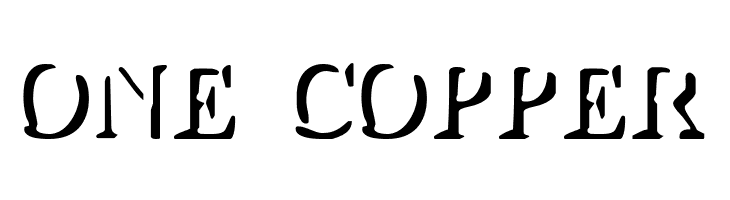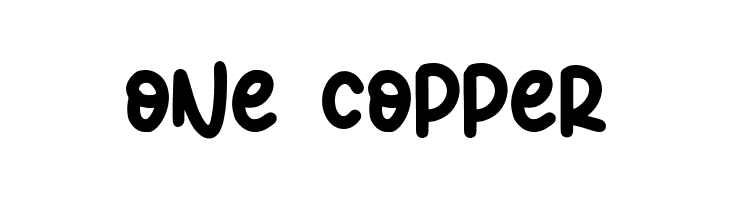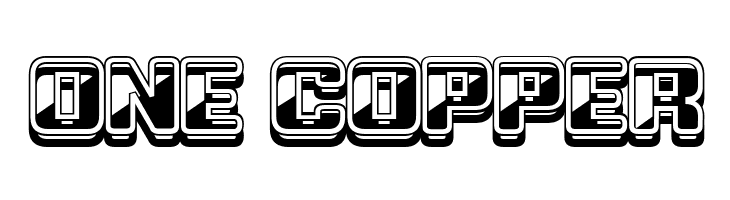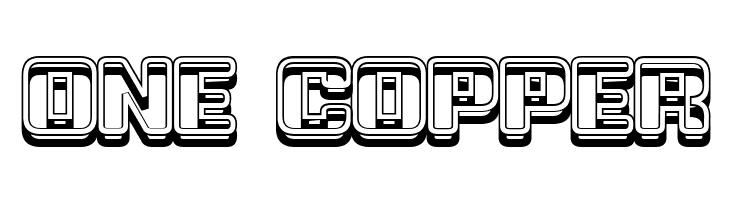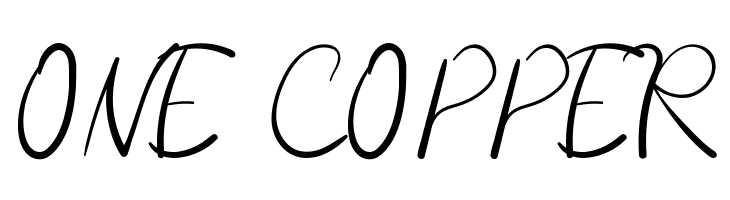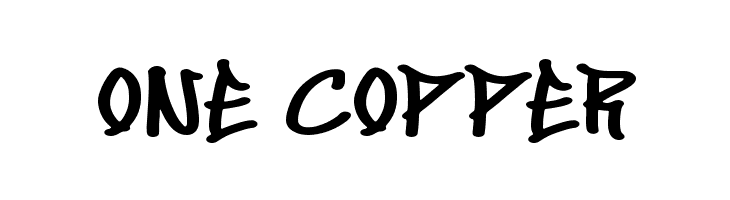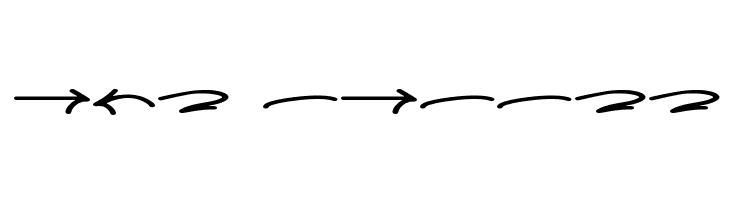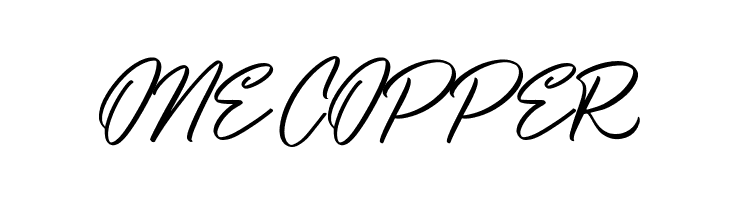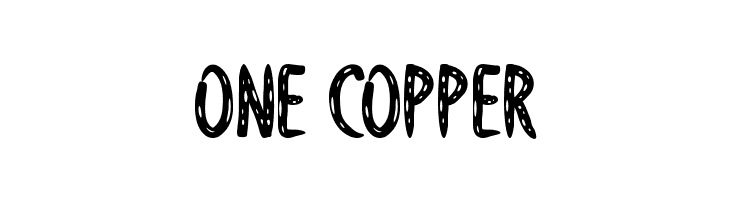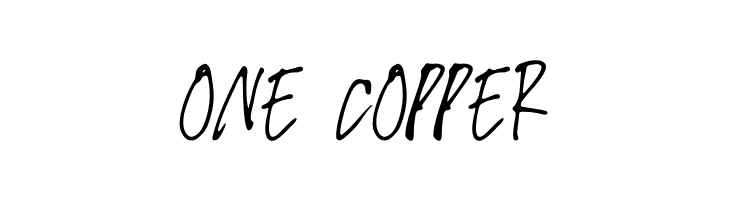
• ShadesRech0
• Shado
A modern sans-serif font with clean lines and geometric shapes.
• Shadow
Bold, geometric font with a three-dimensional shadow effect.
• Shadow Beamer
A playful, bold font with rounded strokes and a friendly appearance.
• Shadow Boxing
A bold, playful script font with decorative, looping strokes.
• Shadow Boxing
A playful, bold font with decorative loops and curls, perfect for creative projects.
• Shadow Jumper
A bold, hand-drawn font with a dynamic shadow effect.
• Shadow Mole
A playful, bold font with a shadow effect and hand-drawn style.
• Shadow of the deads Over
A bold, jagged font with a horror-inspired, torn appearance.
• Shadow of the deads Under
A bold, shadowy font with irregular, dramatic strokes.
• Shadow of Xizor
A bold, high-contrast font with tall, narrow letterforms and sharp angles.
• Shadow Over Demo
A dynamic and fluid script font with elegant, flowing letterforms.
• Shadow Overlapped Regular
A bold, shadowed font with a three-dimensional, geometric style.
• Shadow Party
A lively and dynamic handwritten font with playful, fluid strokes.
• Shadow Puppets
A bold, shadowed font with a three-dimensional, artistic style.
• Shadow Regular
A bold, three-dimensional font with a shadow effect for impactful designs.
• shadow script
• Shadow Sprayz
A bold, graffiti-inspired font with a dynamic, brush-like texture.
• Shadow Sprayz Swash
A whimsical, hand-drawn decorative line design with arrows, hearts, and starbursts.
• Shadow Tag
A bold, shadowed font with a strong, three-dimensional effect.
• ShadowedGermanica